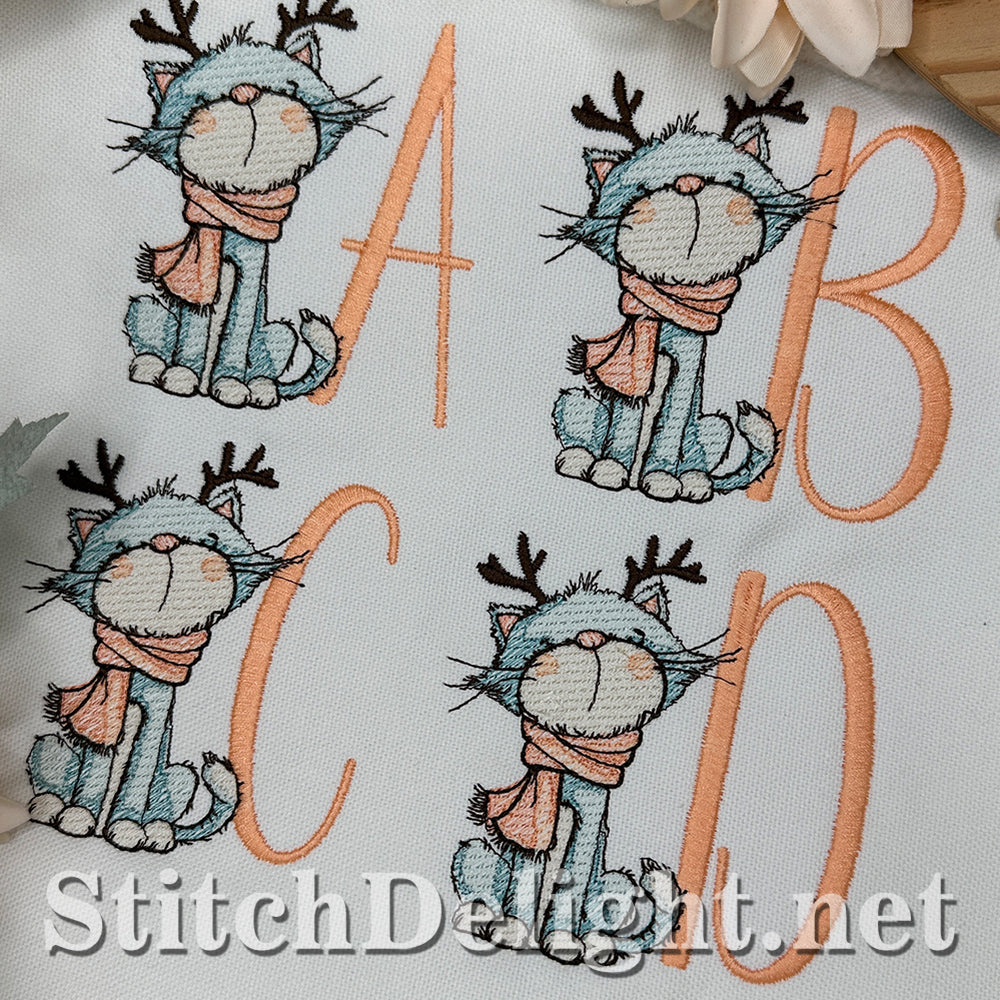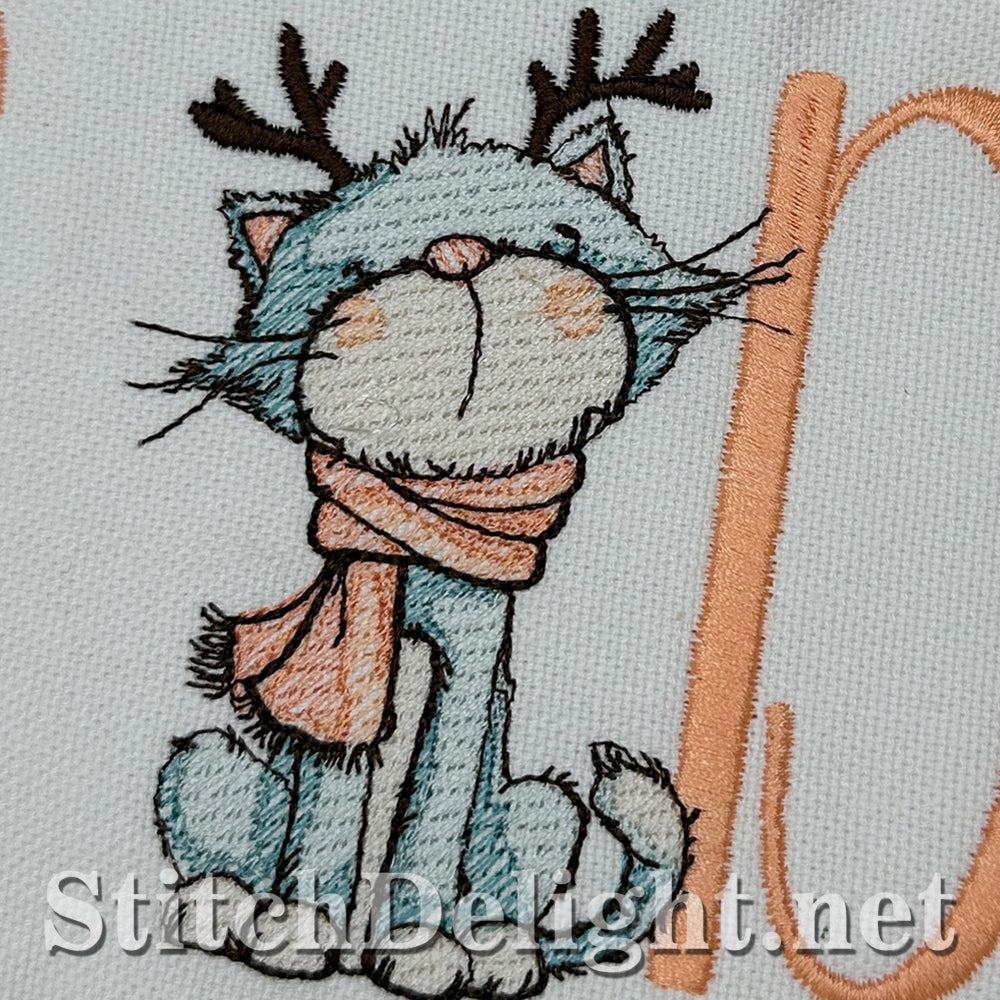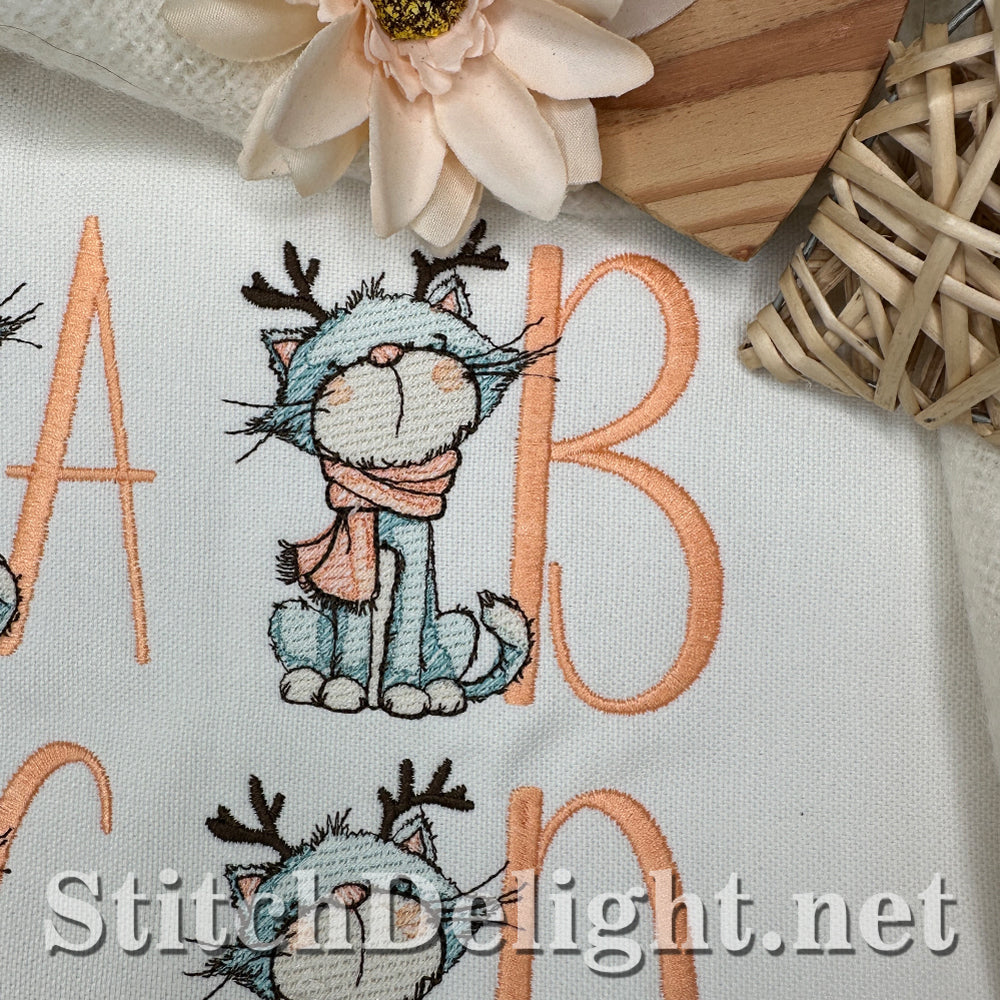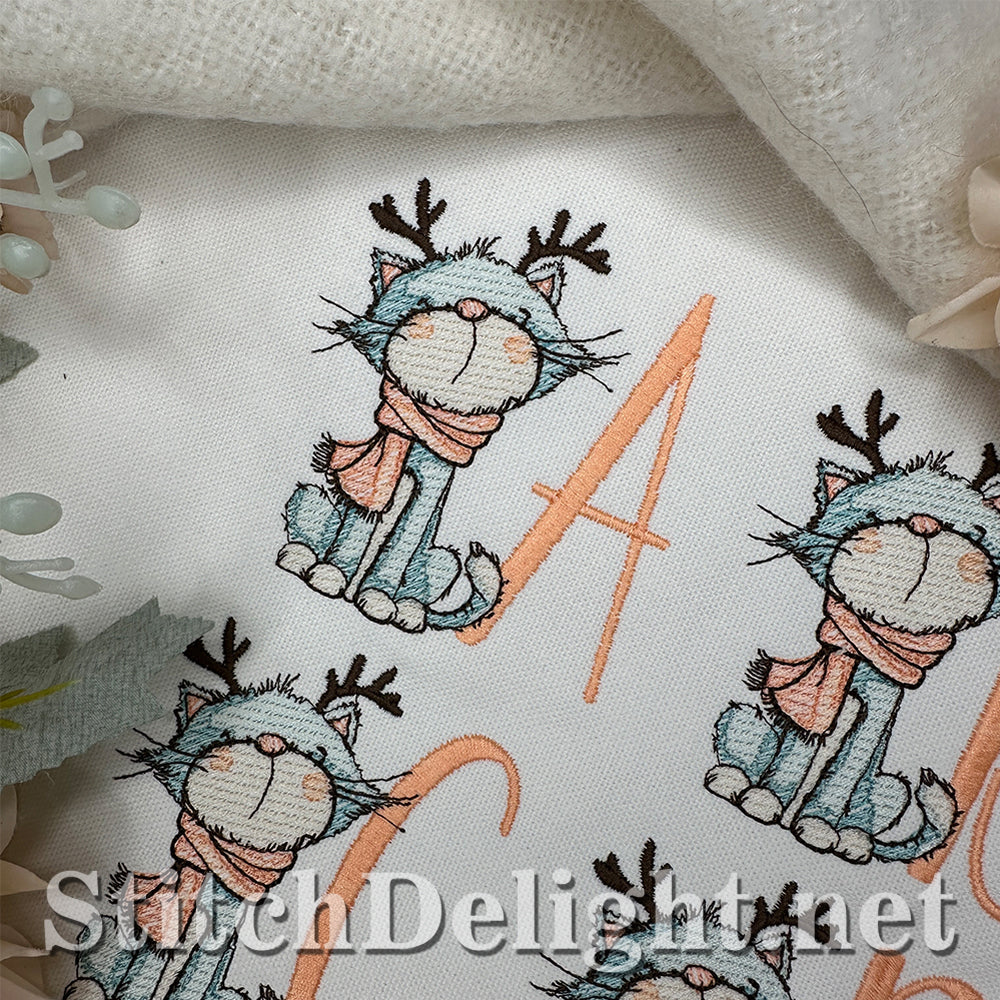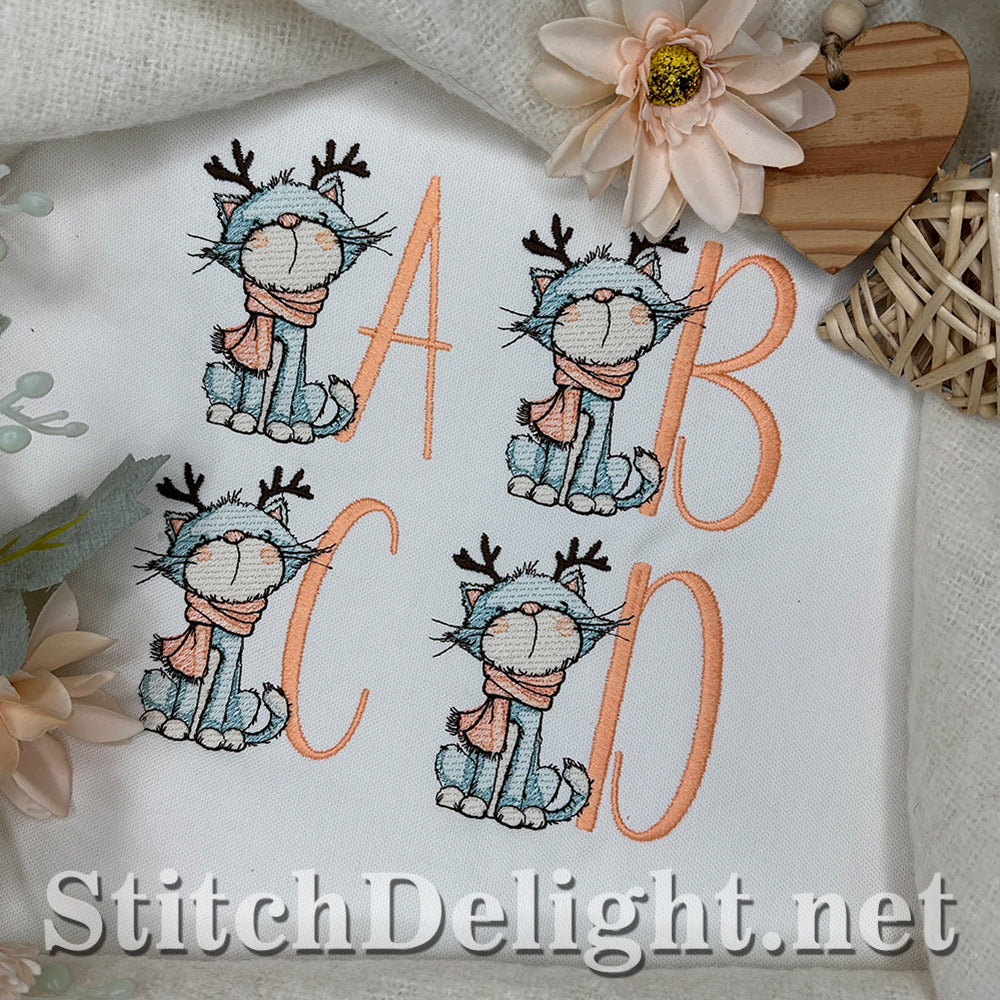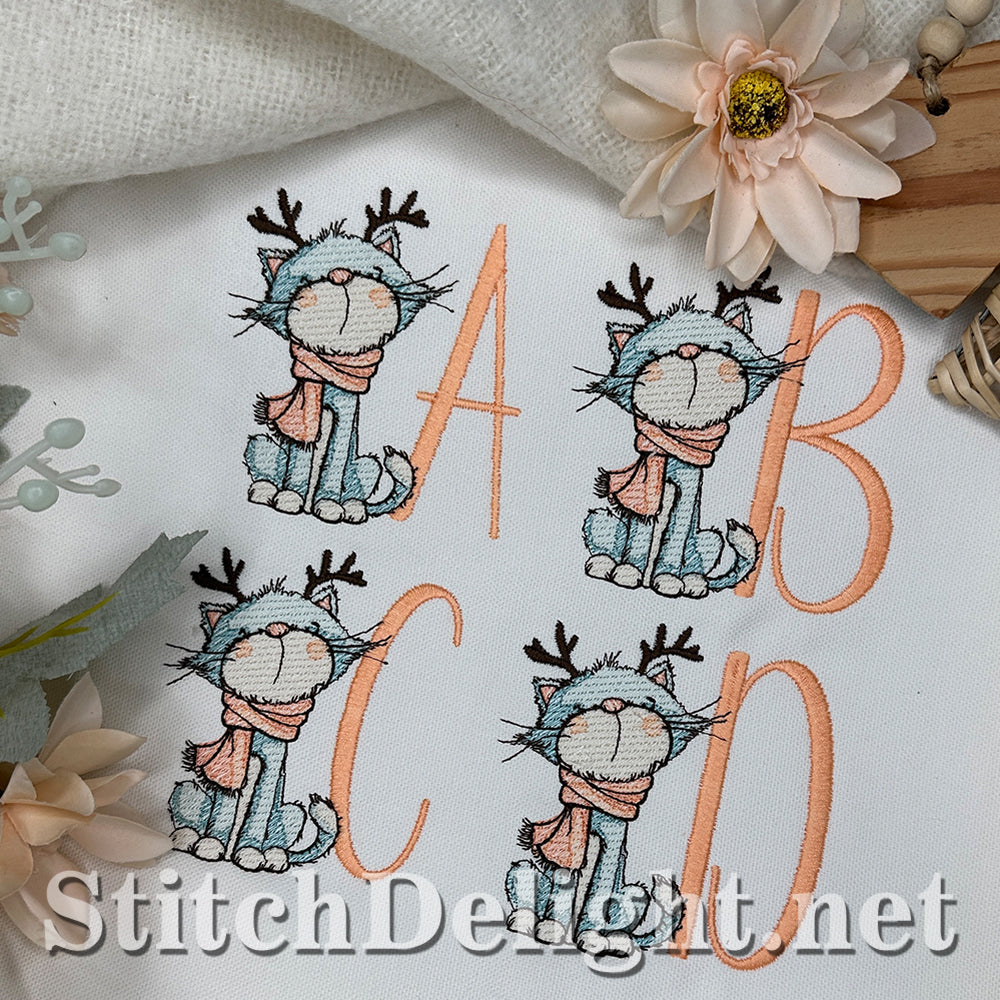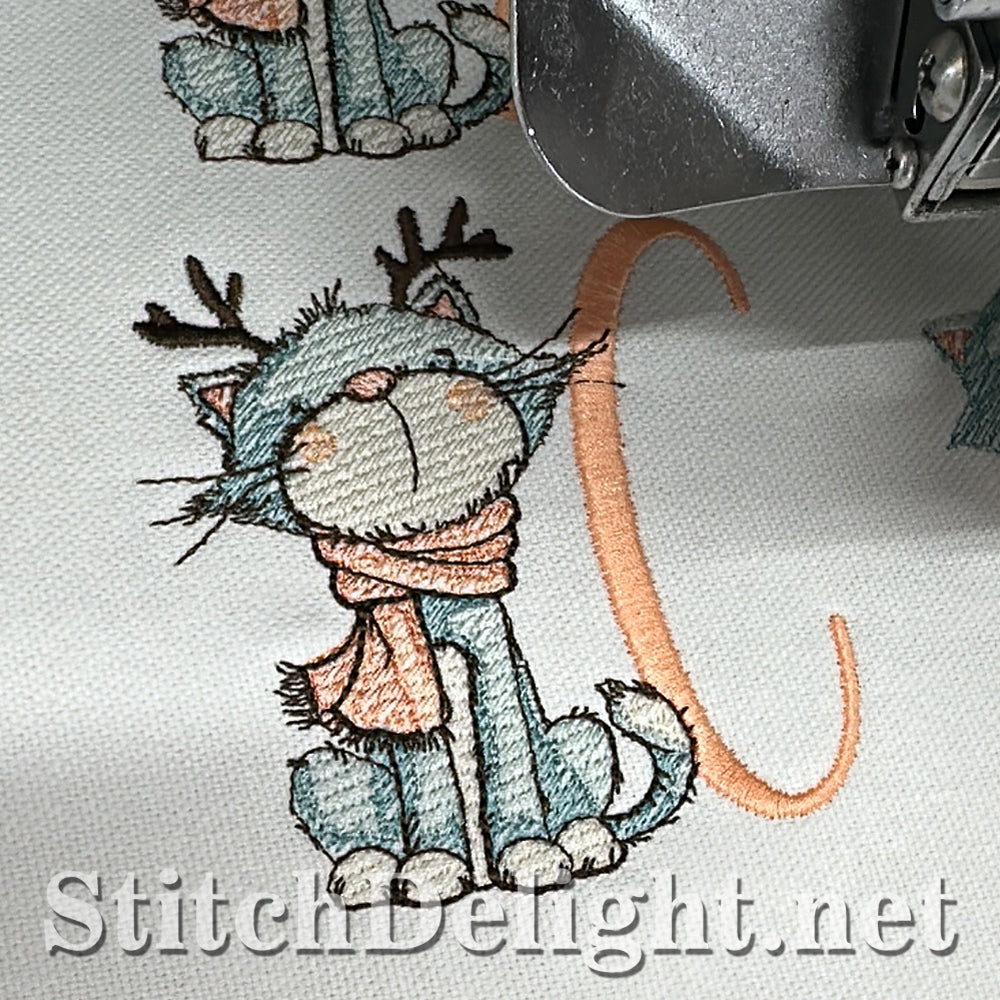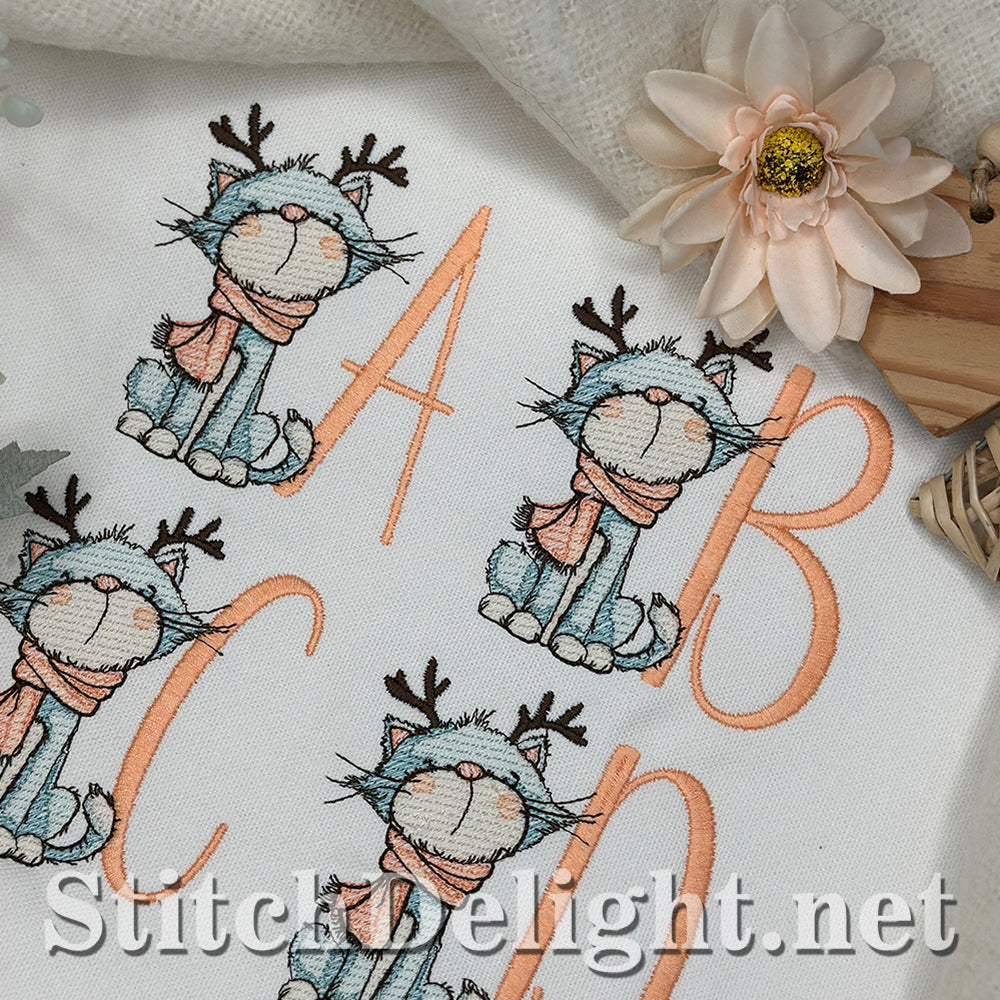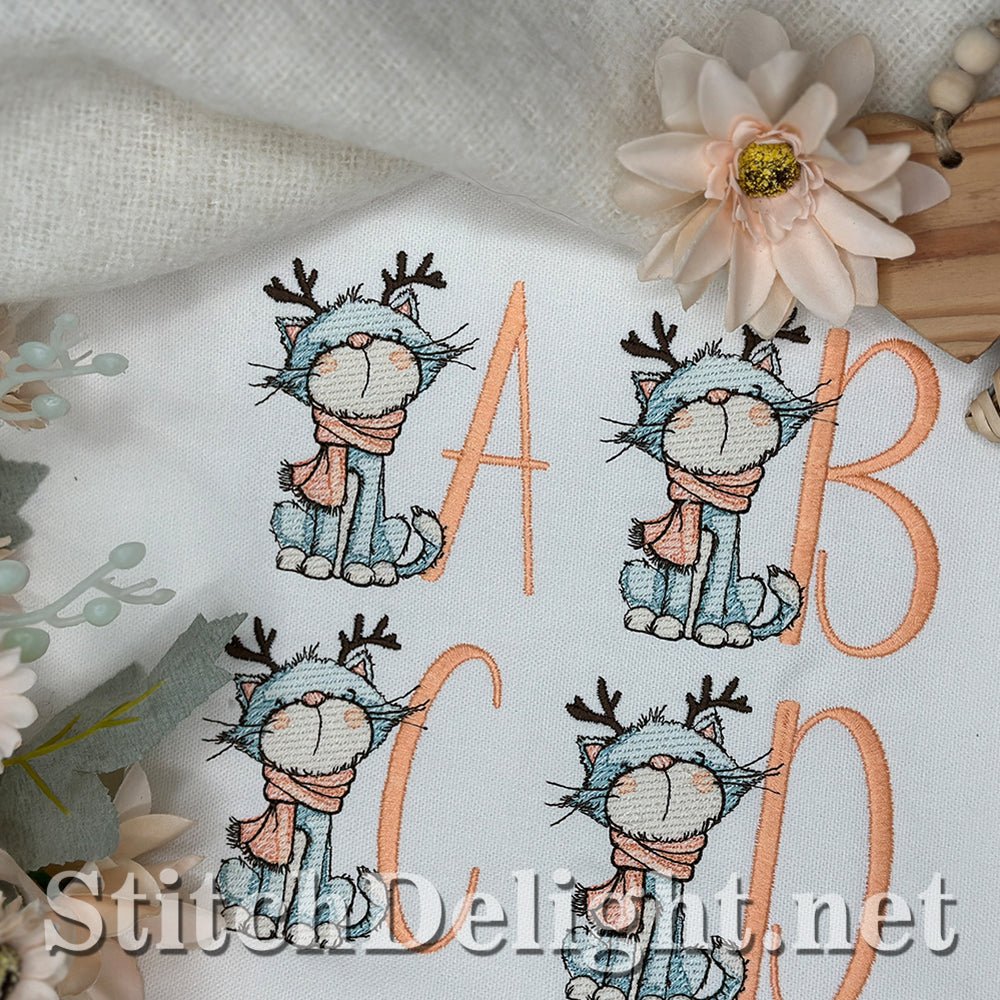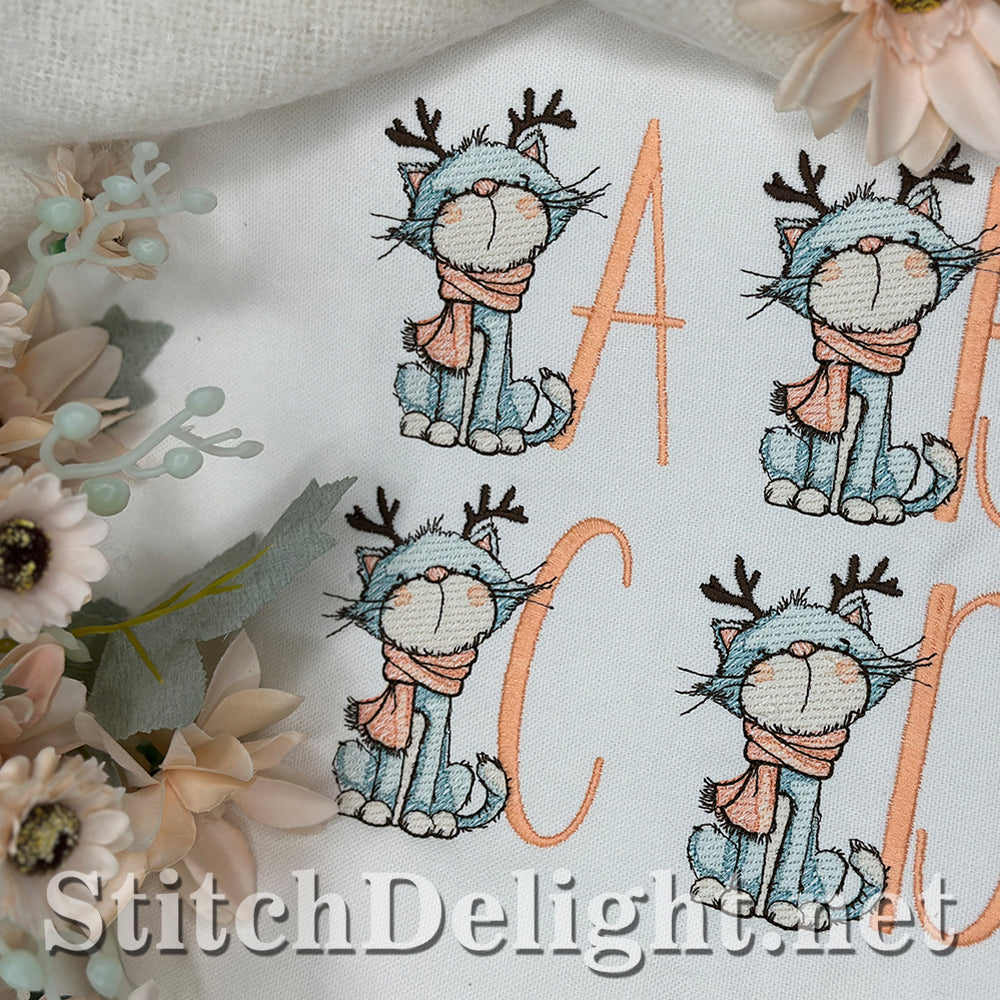
December Collectors Font – A Purrfect Pick for Cat Lovers! 🐾
Say hello to our SDS4726 December Collectors Font, starring one absolutely adorable kitty who appears on all 26 letters. Each design fits beautifully in a 4x4" hoop, making it perfect for names, monograms, gift tags, festive decor, and those sweet December projects you’ve been planning.
And for those who want a fully matching look, you can pair this collectors font with the SDS4727 Purrfect Companion Font. It complements the collectors font flawlessly, giving you clean, simple lettering to use alongside your feature letters.
✨ Highlights:
One cute cat featured across all 26 letters
Perfectly sized for 4x4" hoops
Pairs beautifully with the SDS4727 Purrfect Companion Font
Ideal for festive projects, names, tags, and personalized December stitching
Make your holiday stitching extra sweet this season with this delightful kitty-themed alphabet!